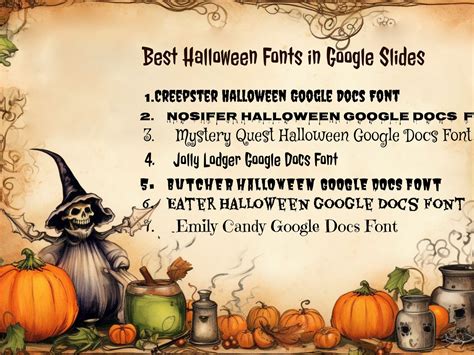
Top 40+ Free Halloween Google Docs Fonts Pptx
I spent three hours last October trying to make a client's Halloween party invite look genuinely spooky. Default fonts like Arial just don't scream "Halloween." That's when I realized the value of pulling together a curated list of the Top 40+ Free Halloween Google Docs Fonts Pptx compatible options. You need typefaces that actually set the mood without costing a dime or breaking your layout.
Why Default Typography Ruins the Vibe
Here’s the thing about Halloween design: atmosphere is everything. When I tested various festive presentations, the ones that used generic sans-serif fonts felt like corporate memos dressed up in pumpkin clip art. You need dripping letters, eerie curves, or distressed edges to make it work. The good news is Google Fonts offers an extensive library that works perfectly across Docs and downloaded PPTX files.
That said, not every spooky font translates well to a slideshow. Some decorative typefaces become unreadable at smaller sizes. I always recommend testing your chosen typeface on a projector first, as text that looks fine on a laptop screen often becomes an illegible blob when blown up.
Curating the Top 40+ Free Halloween Google Docs Fonts Pptx List
Instead of just throwing a massive list at you, I’ve categorized the most reliable fonts I use. These specific families render cleanly whether you are drafting a flyer in Docs or exporting a PPTX for a client.
Font NameStyleBest Used For
CreepsterDripping, gothicLarge headers, title slides
NosiferBlood-splattered, distressedShort, impactful warning text
Metal ManiaHeavy metal, jagged edgesSubheadings, event titles
EaterDecaying, spookyDecorative accents, captions
You can mix and match these, but I suggest pairing a highly decorative font with something clean and legible. For example, use Creepster for your main title and a simple serif like Lora for the body text.
Building the perfect Halloween document or presentation takes a bit of trial and error. You have to balance the spooky aesthetic with actual readability. Test your fonts on different screens, keep your body text simple, and let the decorative typefaces handle the heavy lifting for your headers. Your audience will immediately notice the difference when you put in that extra effort.